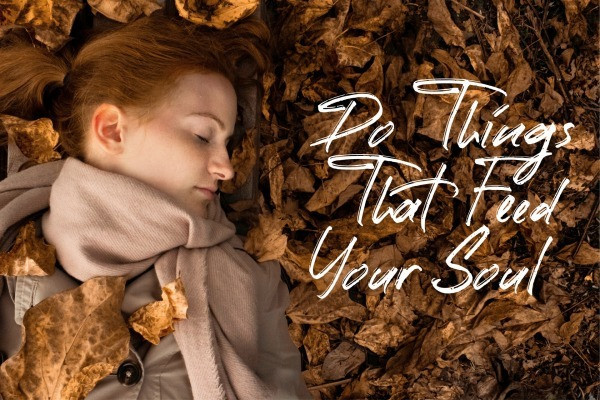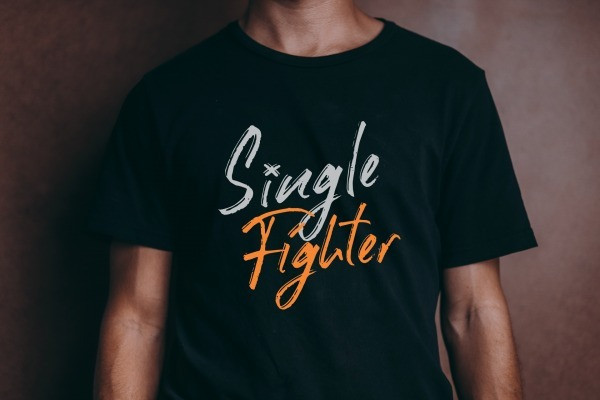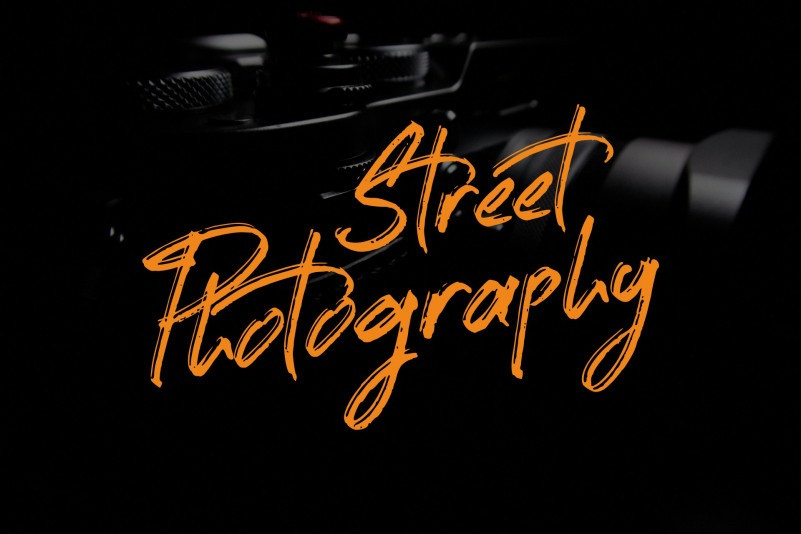
Introducing Street Photography Brush Font. It’s handbrush font. Combines attractive curves with a fresh urban edge delivering a stylish script which is guaranteed to add an eye-catching appeal to your designs. It is design and shared by Willetter Studio.
Street Photography Brush Font is a natural hand brushed font. Work great for any design needs: logo, branding, modern advertising design, logos, poster quote, book/cover Title, editorial design, website/blog, card, custom mug, pillow, t-shirts, and any hand-lettered needs.